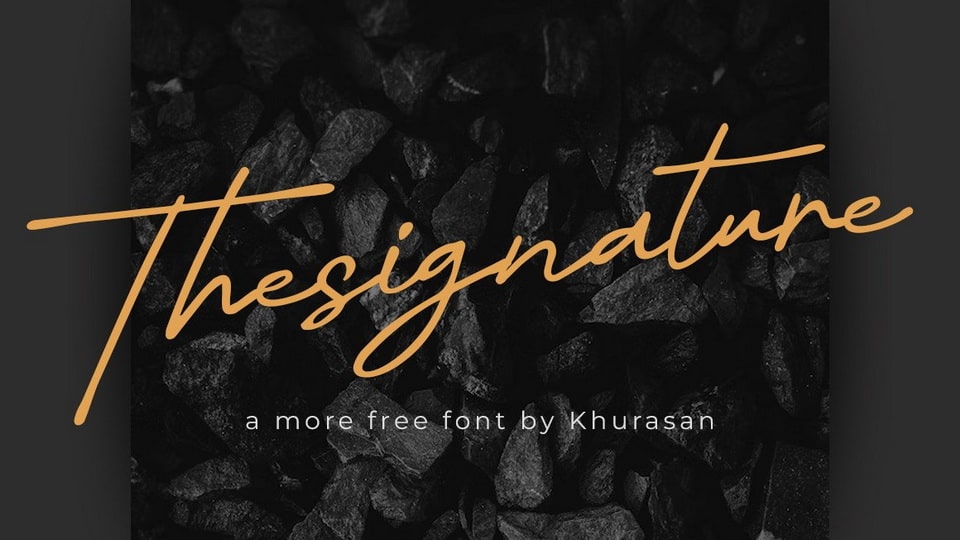
Download Thesigntaure font, a stylish signature typeface with an organic flow. Thesigntaure is perfect for posters, logos, magazines, book covers, banners, and many more.